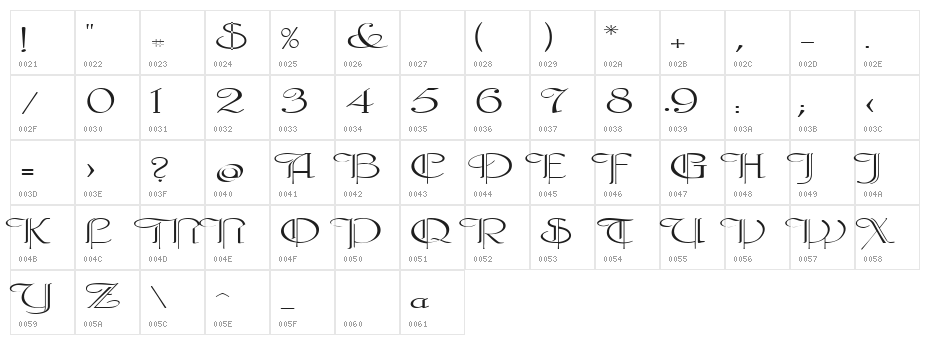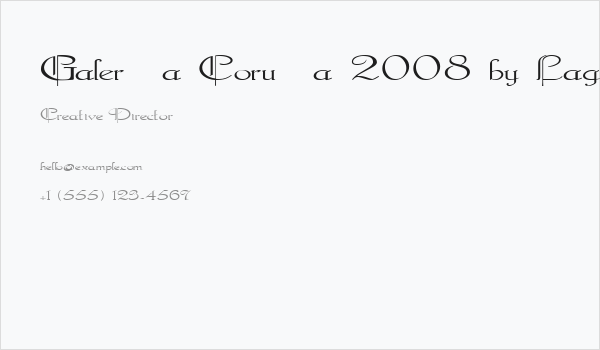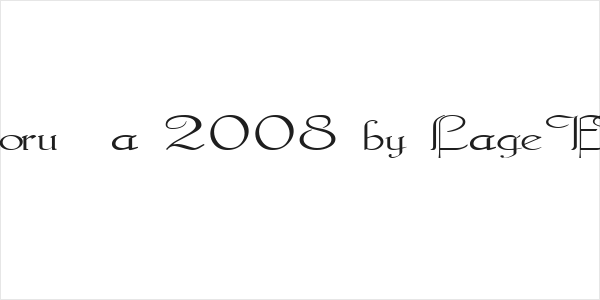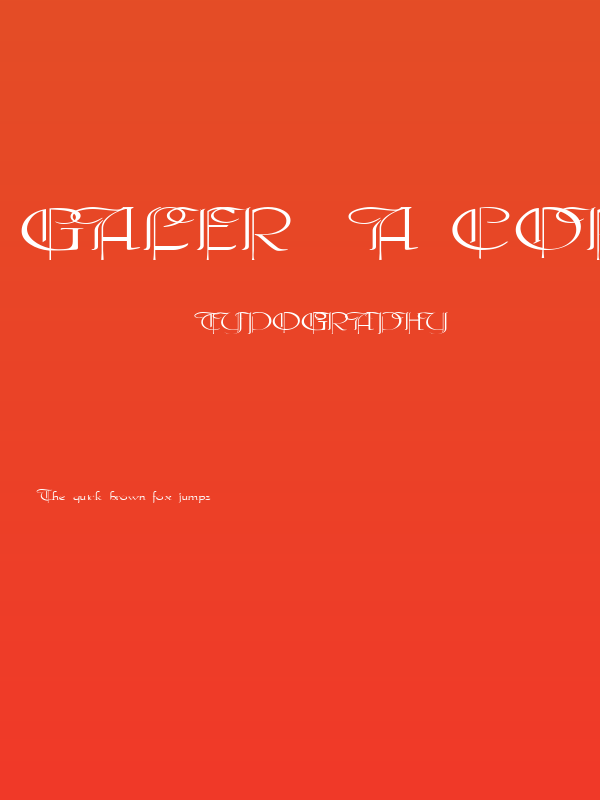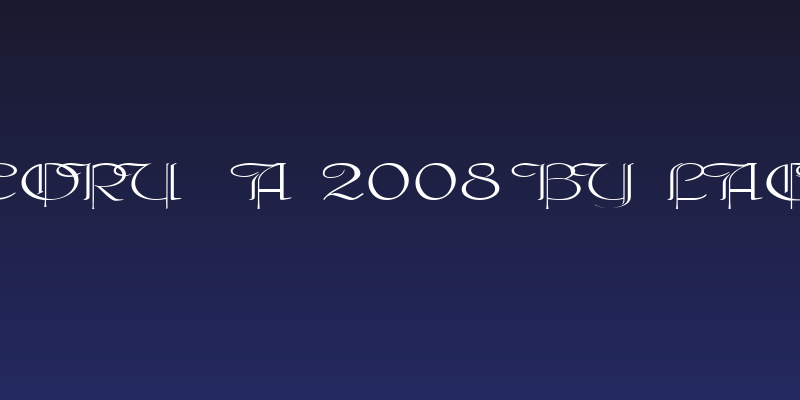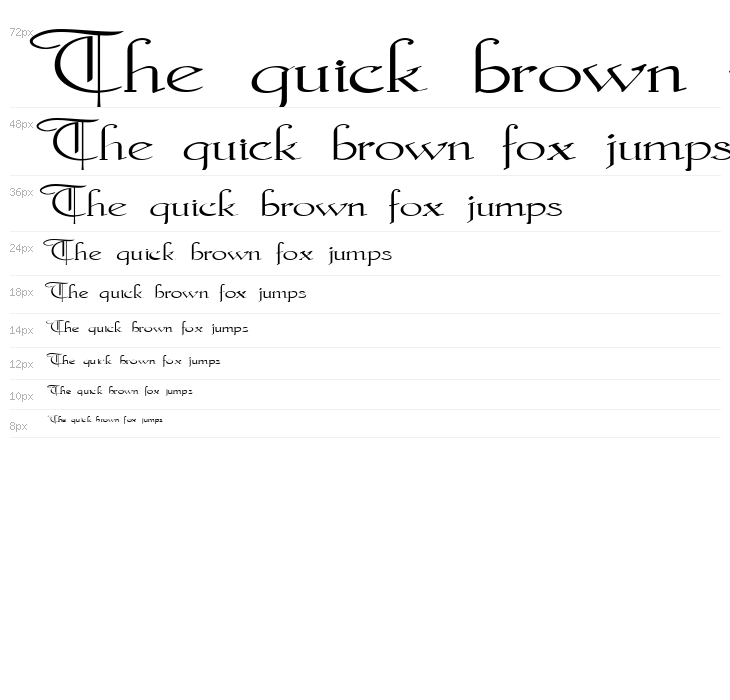
Galerìa Coruña 2008 by Lage EXT NRM Font
Galerìa Coruña 2008 by Lage EXT NRM Description
This font exhibits a unique blend of modern and classic elements, characterized by its elegant and artistic letterforms. The uppercase letters feature intricate, decorative details with a slight Gothic influence, creating a striking visual impact. The lowercase letters are more streamlined, maintaining a sophisticated and graceful appearance. The numerals and special characters complement the overall style, adding to the font's versatility. The design is both bold and refined, making it suitable for a variety of creative applications.